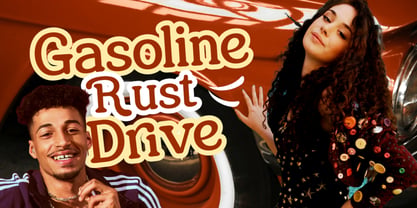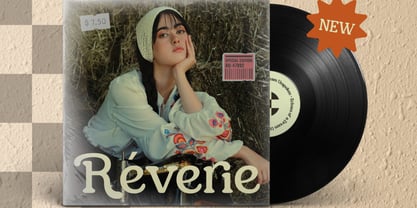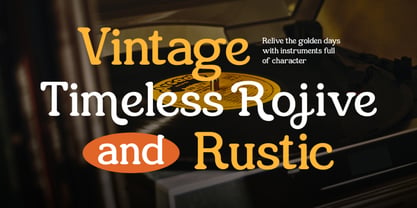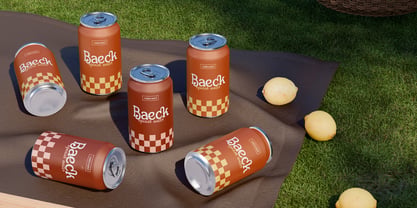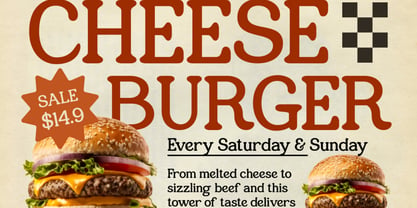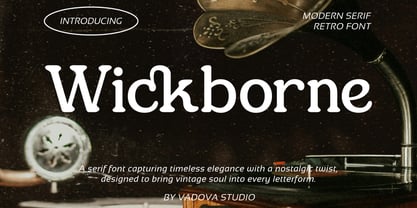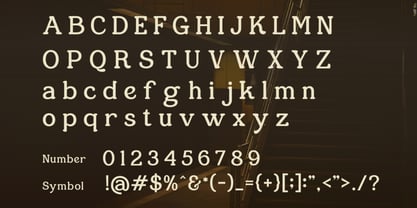
Wickborne
by Vadova Std
The Wickborne Font Family was designed by and published by Vadova Std. Wickborne contains 1 styles.
Wickborne is a modern serif font with a nostalgic retro twist. It blends classic type design with warm, soft curves and a slightly playful character perfect for capturing a timeless aesthetic. Featuring uppercase and lowercase letters, numbers, punctuation, and multilingual support, Wickborne brings a vintage soul into every letterform. Ideal for branding, headlines, posters, and packaging, this typeface offers a bold yet elegant personality suitable for both retro-themed and modern design contexts. Wickborne is perfect for creatives seeking a font that balances retro charm with modern clarity. Its unique serif style is well-suited for vintage branding, bold poster titles, nostalgic packaging, retro-themed social media posts, and editorial layouts. It brings character to both digital and print formats, especially where a sense of heritage and style is desired.
Wickborne